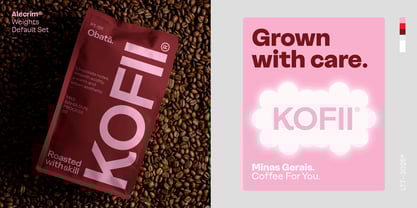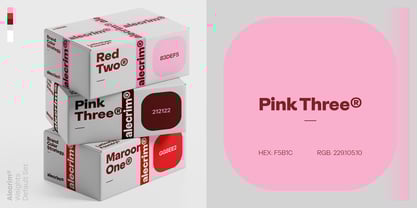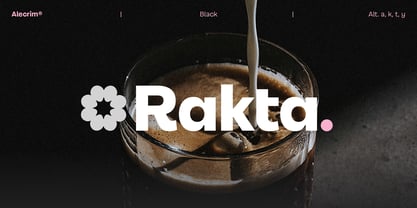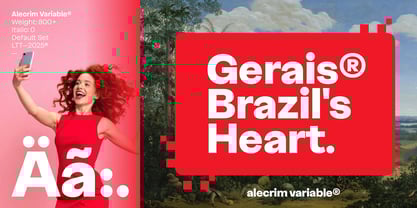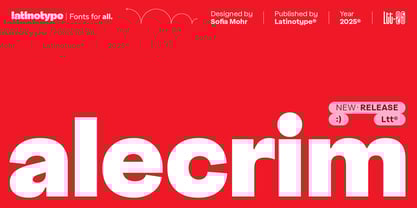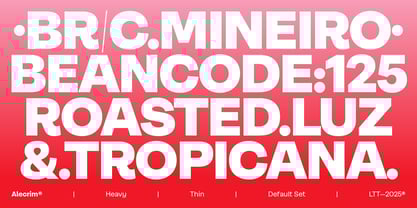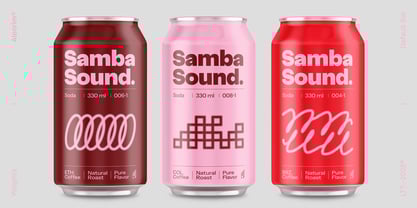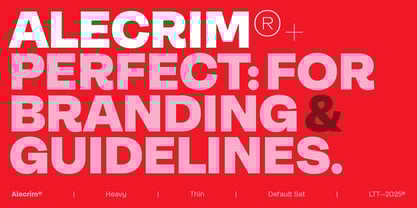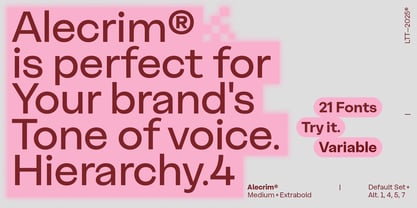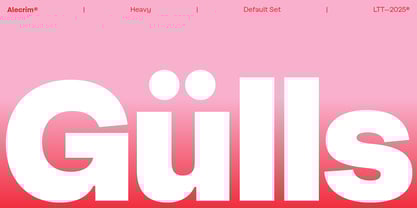
Alecrim
by Latinotype
The Alecrim Font Family was designed by Sofia Mohr, Latinotype Team and published by Latinotype. Alecrim contains 21 styles and family package options.
A grotesque with no expiration date
Alecrim is a sans grotesque typeface with firm strokes, generous height, and precise construction. Crisp in small sizes and striking in headlines, it blends functionality with a clear, contemporary visual voice. Its structure avoids unnecessary ornaments, maintaining a sober rhythm that resists trends and stylistic excesses.
The set includes 10 weights —from Ultra Thin to Black— plus italics, for a total of 20 styles also designed as a variable font. The text variants are optimized for readability, while the alternate sets enhance its expressiveness in display use. Taut curves, closed terminals, and low contrast give the text unique character and rhythm.
Inspired by 20th‑century grotesques, Alecrim aligns with timeless sans serif classics such as Helvetica, Frutiger, and Franklin Gothic. Its contemporary precision and graphic solidity make it a reliable tool for visual identity, editorial design, and systems that demand clarity, neutrality, and durability.